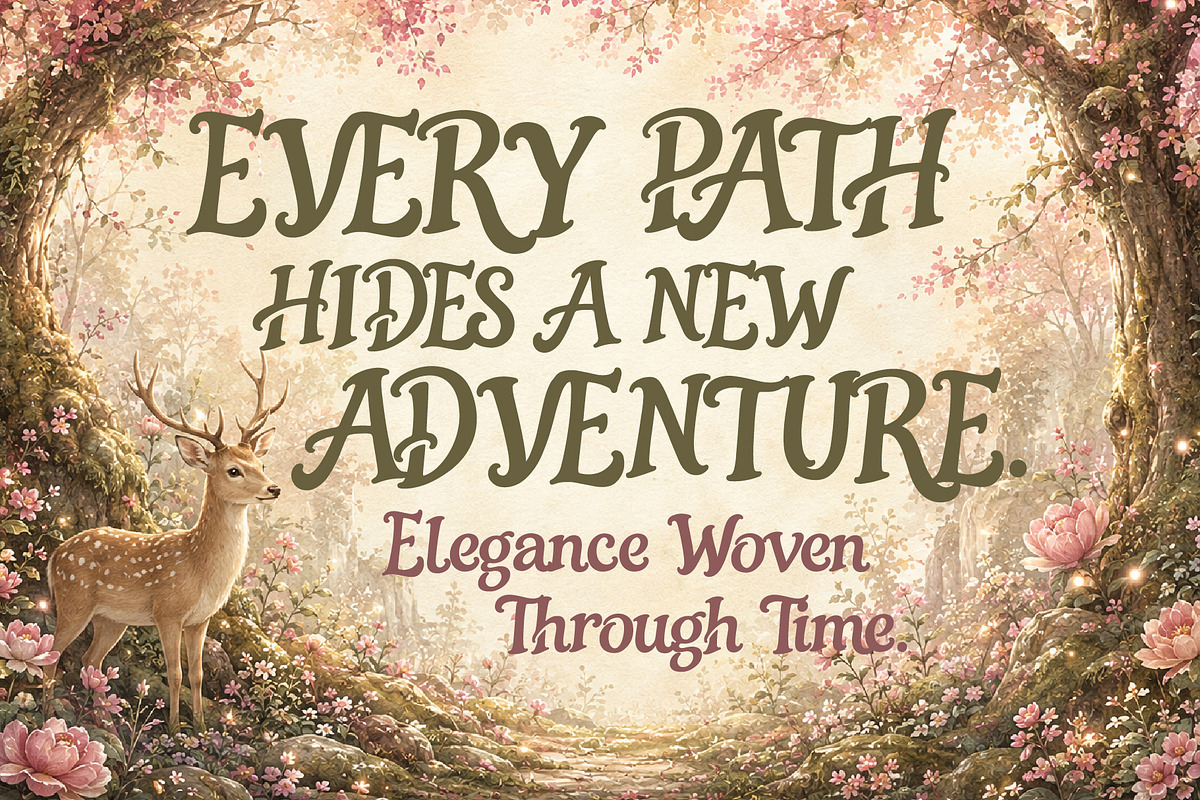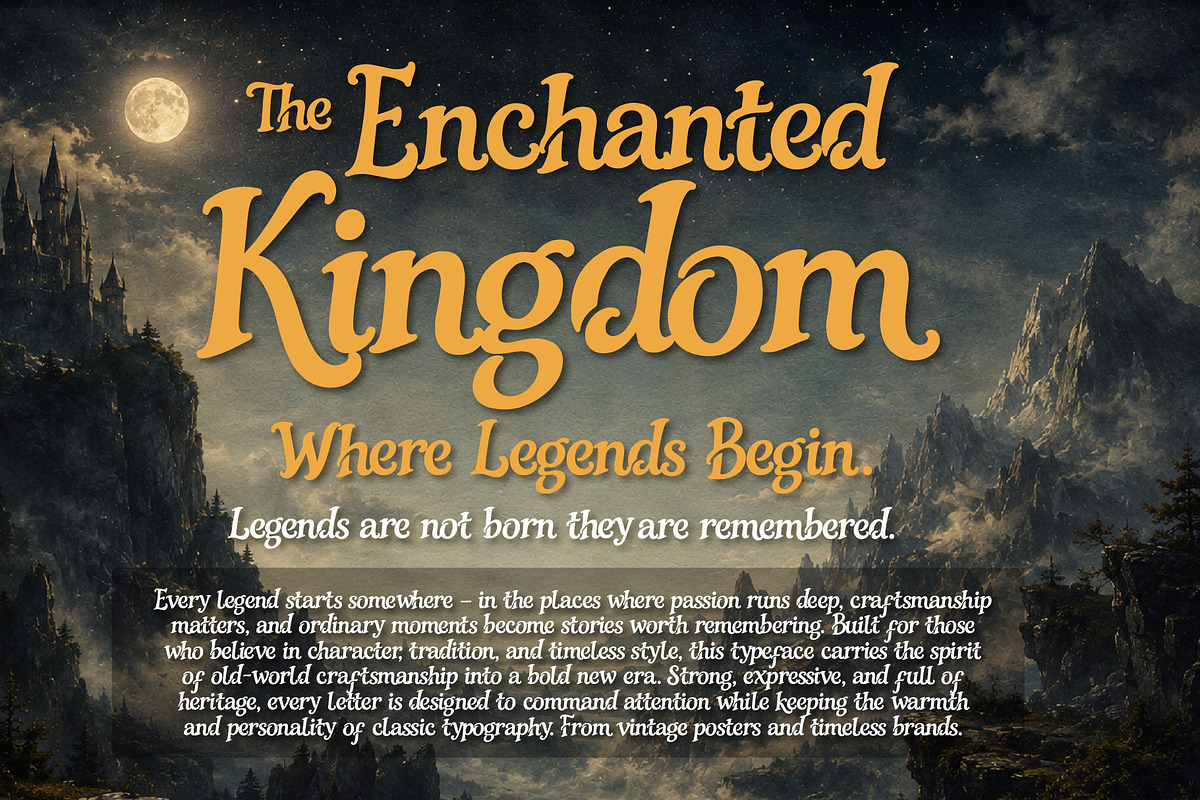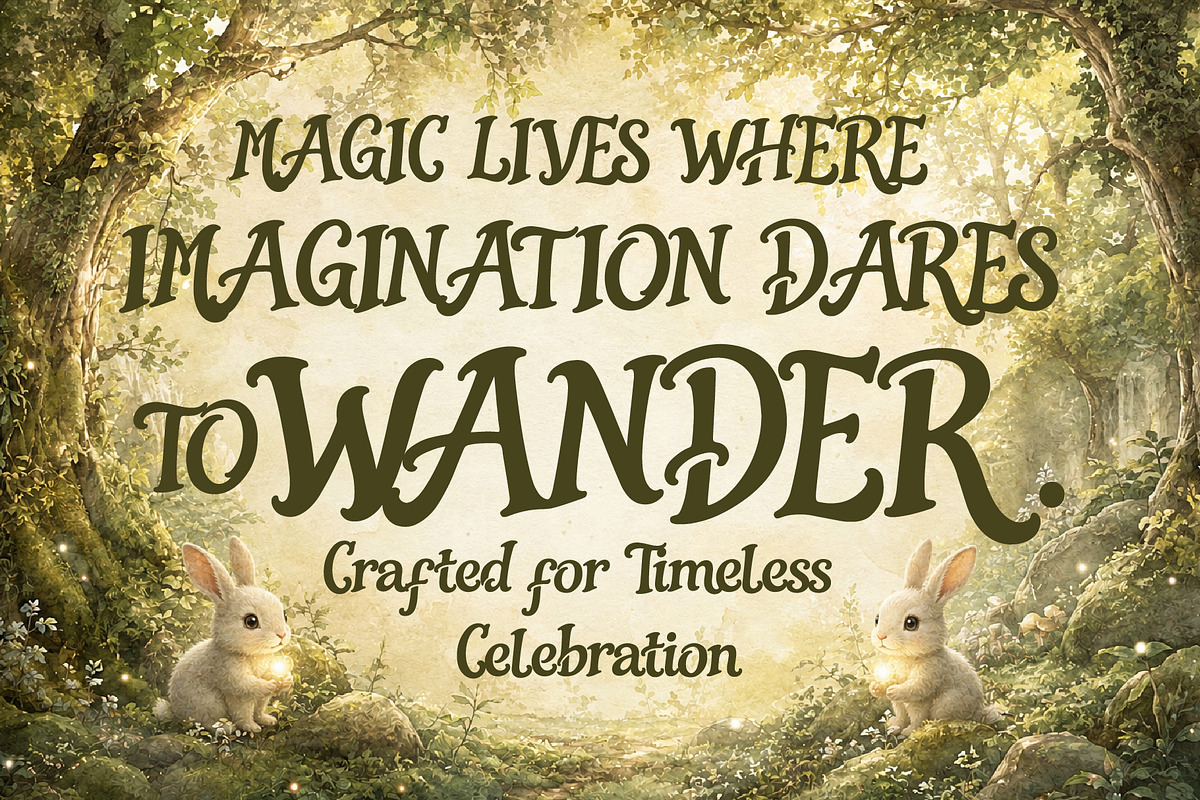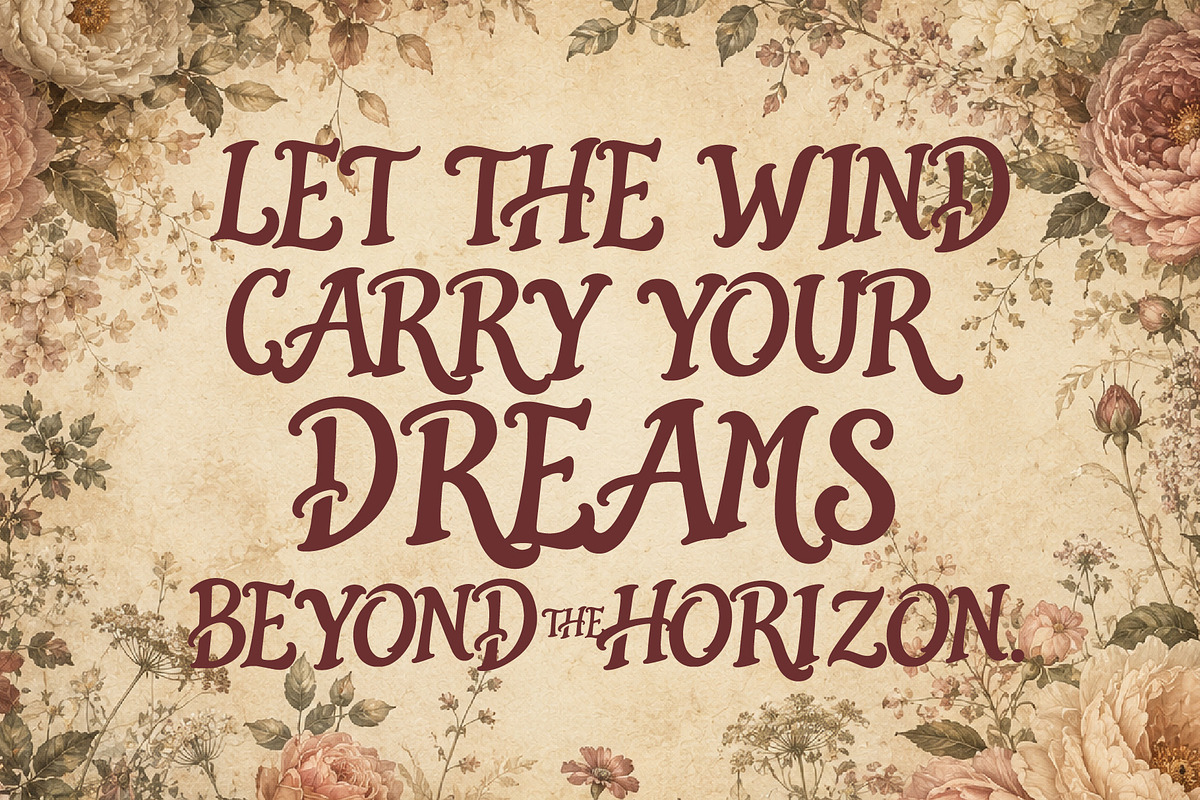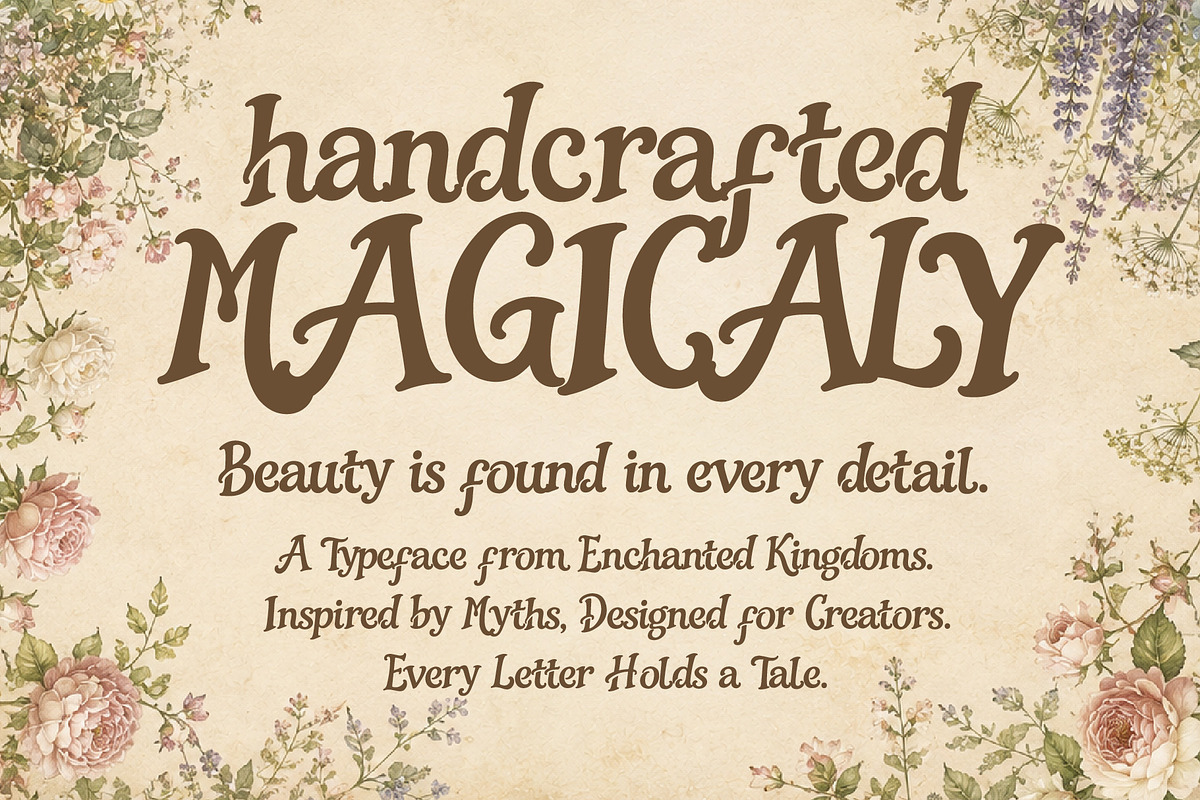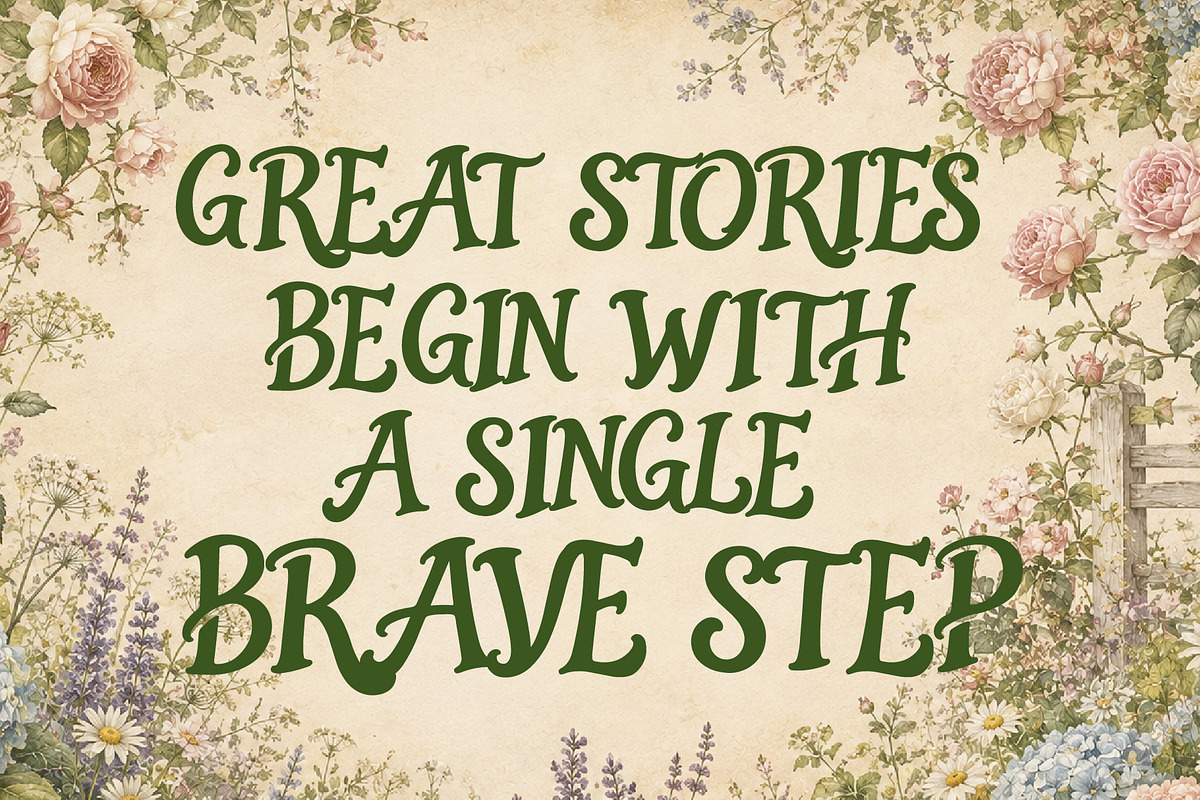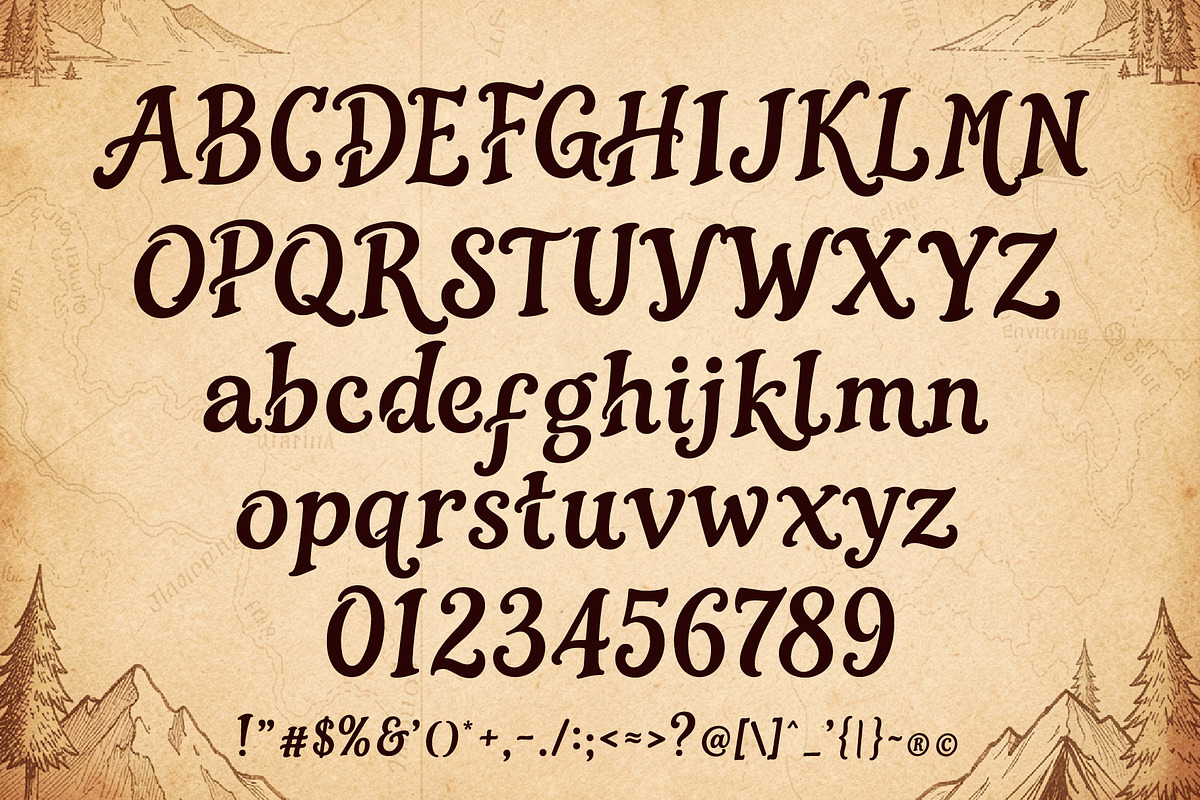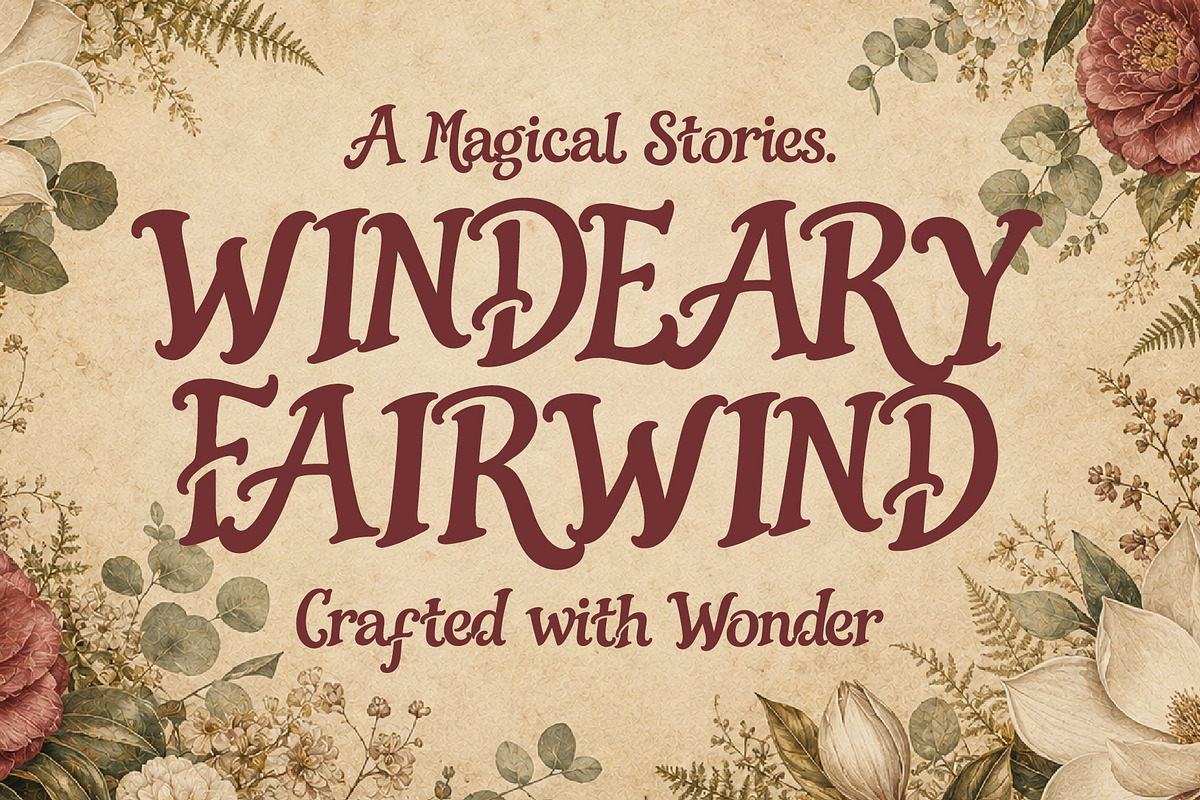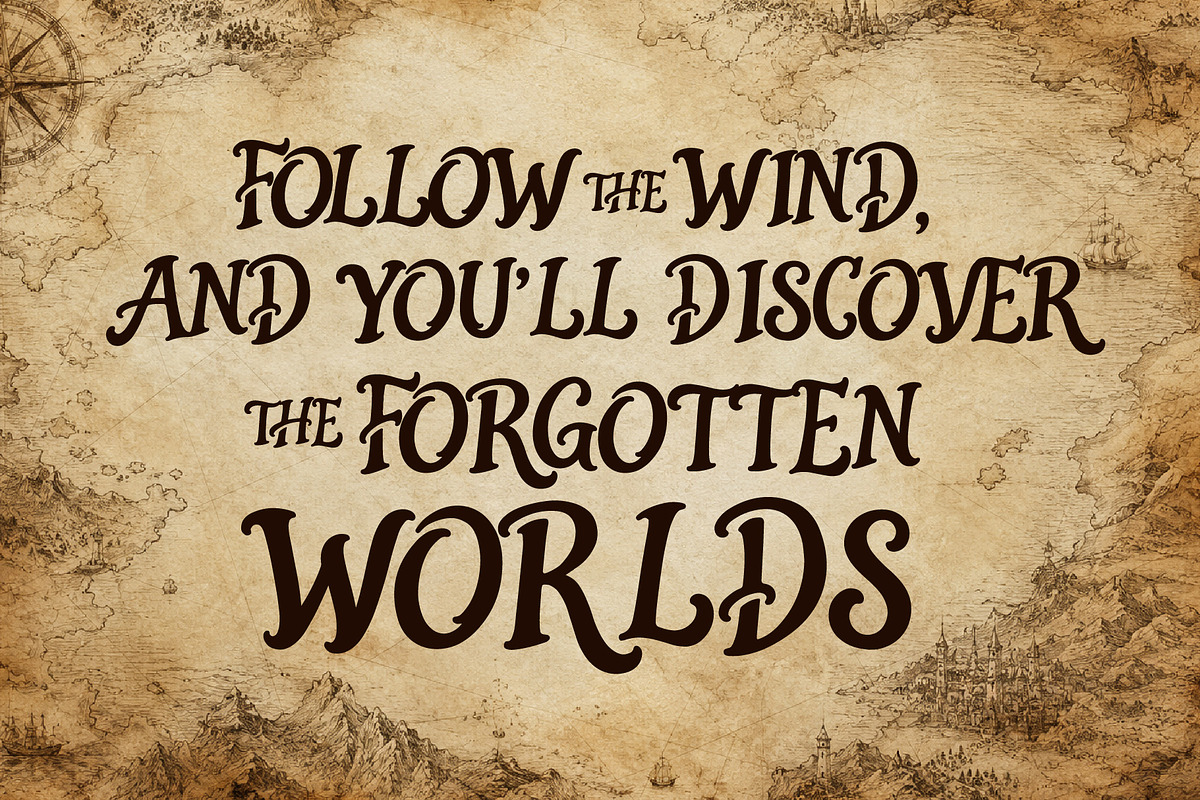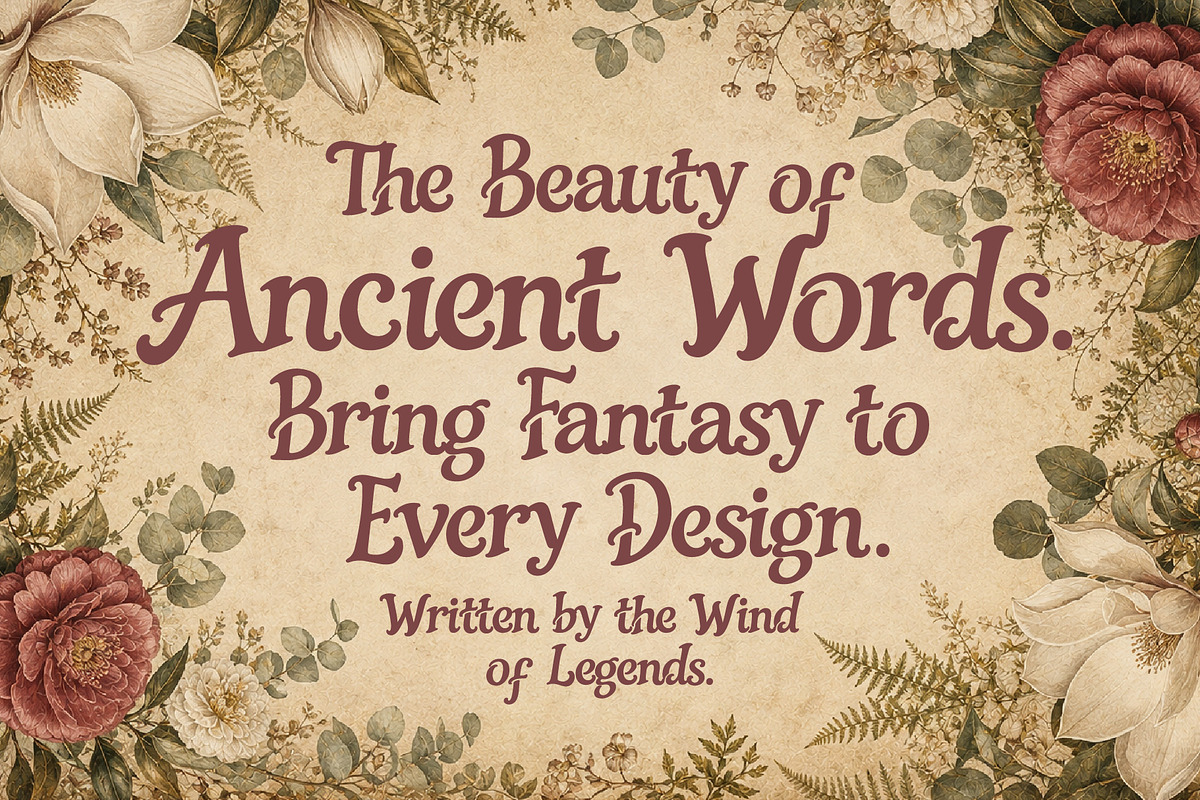
Windeary Fairwind - Magical Worlds
**Windeary Fairwind ** is a decorative fantasy display serif inspired by the timeless beauty of medieval manuscripts, Celtic lettering, fairy tales, and Renaissance typography. Blending elegant curves, handcrafted serifs, and whimsical flourishes, this typeface transports your designs into enchanting kingdoms, magical worlds, and unforgettable adventures.
Perfect for storytelling, Windeary Fairwind captures the spirit of fantasy novels, classic fairy tales, legendary quests, and ancient folklore. Whether you're designing a captivating novel cover, magical book title, RPG game logo, storybook, wedding invitation, artisan branding, or premium packaging, every letter evokes wonder, imagination, and timeless craftsmanship.
Designed to balance decorative beauty with excellent readability, Windeary Fairwind is the perfect choice for creators who want to bring myths, legends, and magical stories to life.